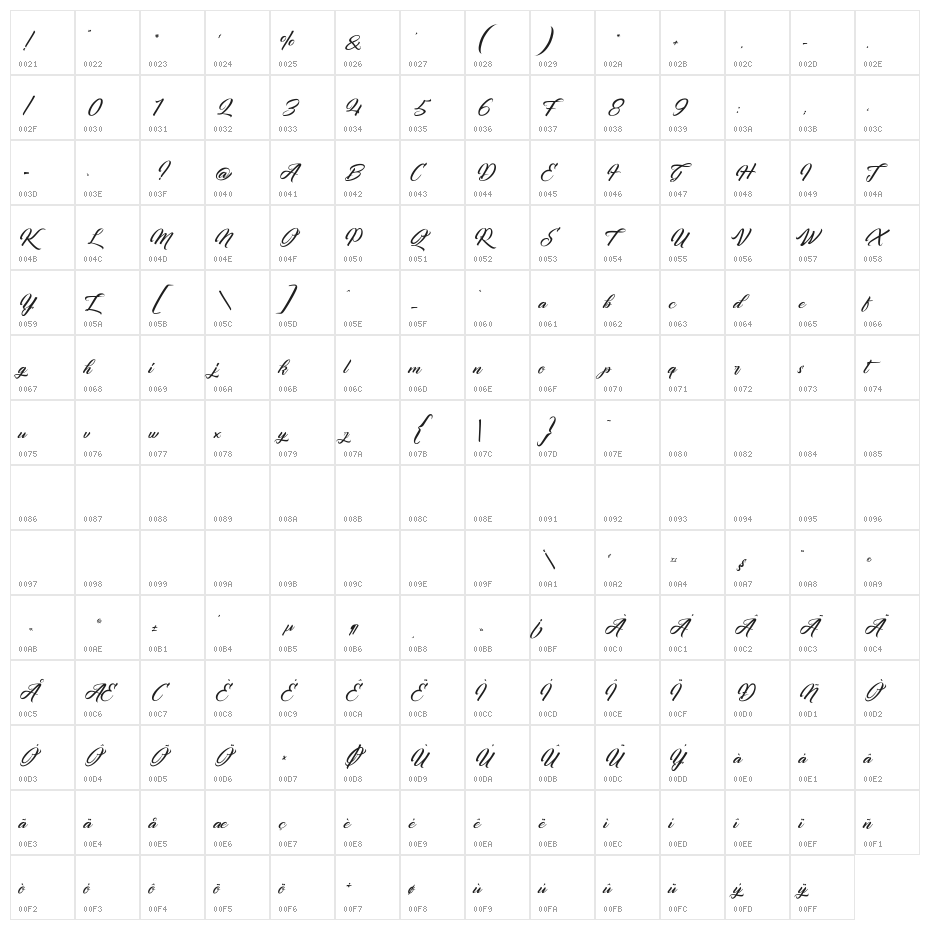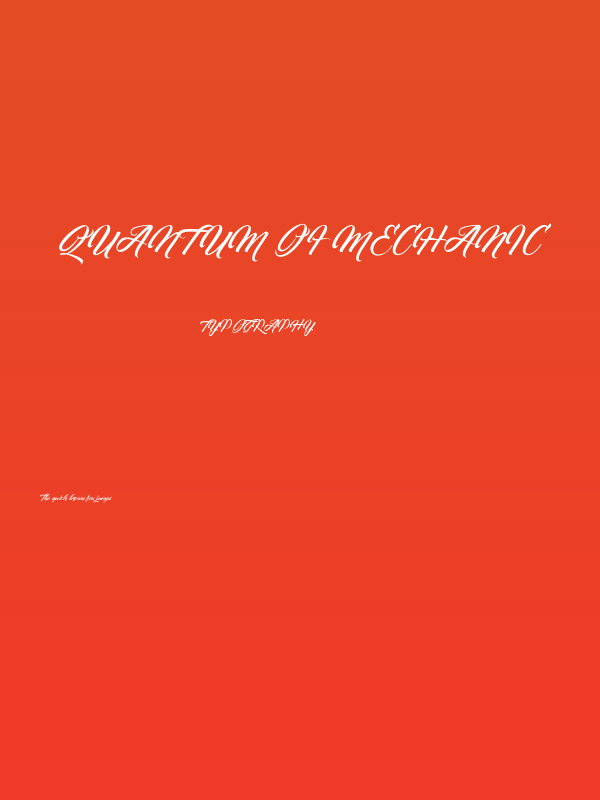
Quantum of Mechanic Font
Quantum of Mechanic Description
This elegant script font features flowing, cursive letters with a classic and sophisticated appearance. The uppercase letters are ornate, with sweeping lines and flourishes that give a sense of movement and grace. The lowercase letters maintain a consistent style, with smooth curves and connected strokes that enhance readability while preserving the decorative nature. Numbers and special characters are designed to match the overall aesthetic, ensuring a cohesive look across all text. This font is ideal for projects that require a touch of elegance and formality.
| Use Case | Headlines, Invitations, Branding |
| Proposed Projects | Wedding invitations, formal event programs, elegant branding materials, and luxury product packaging. |